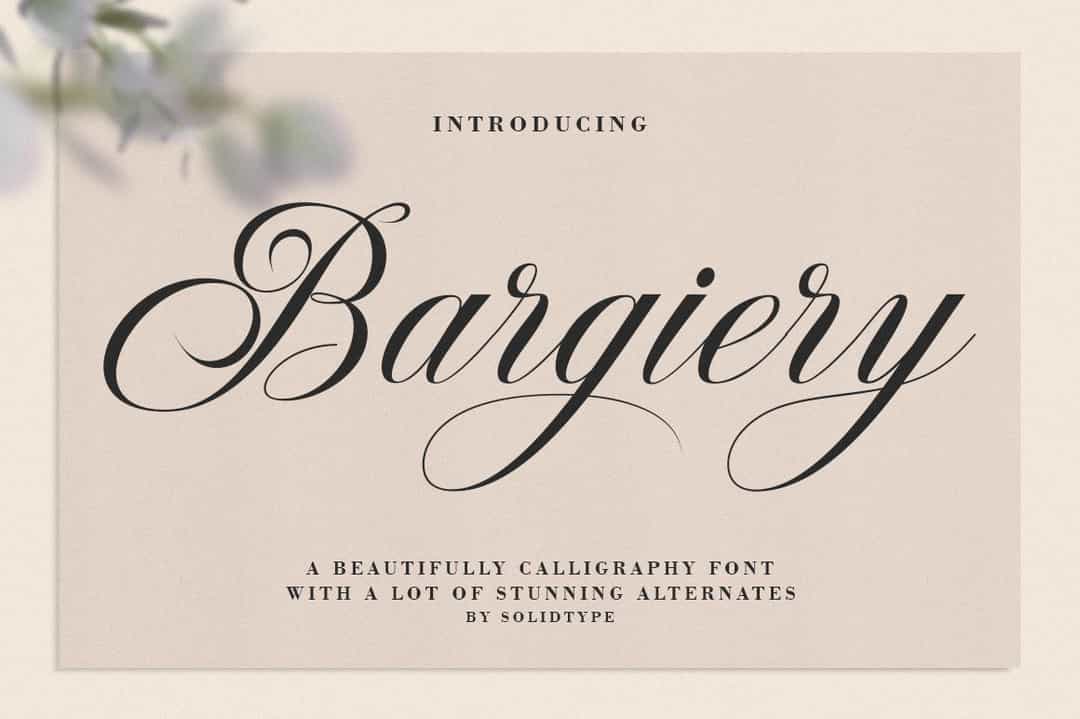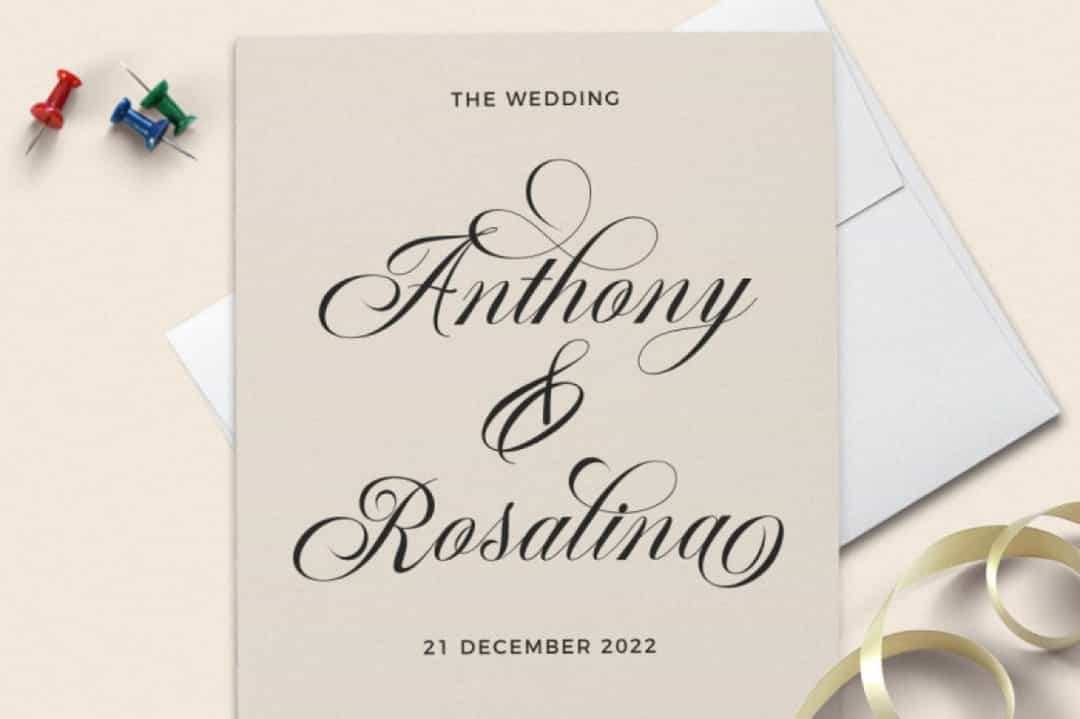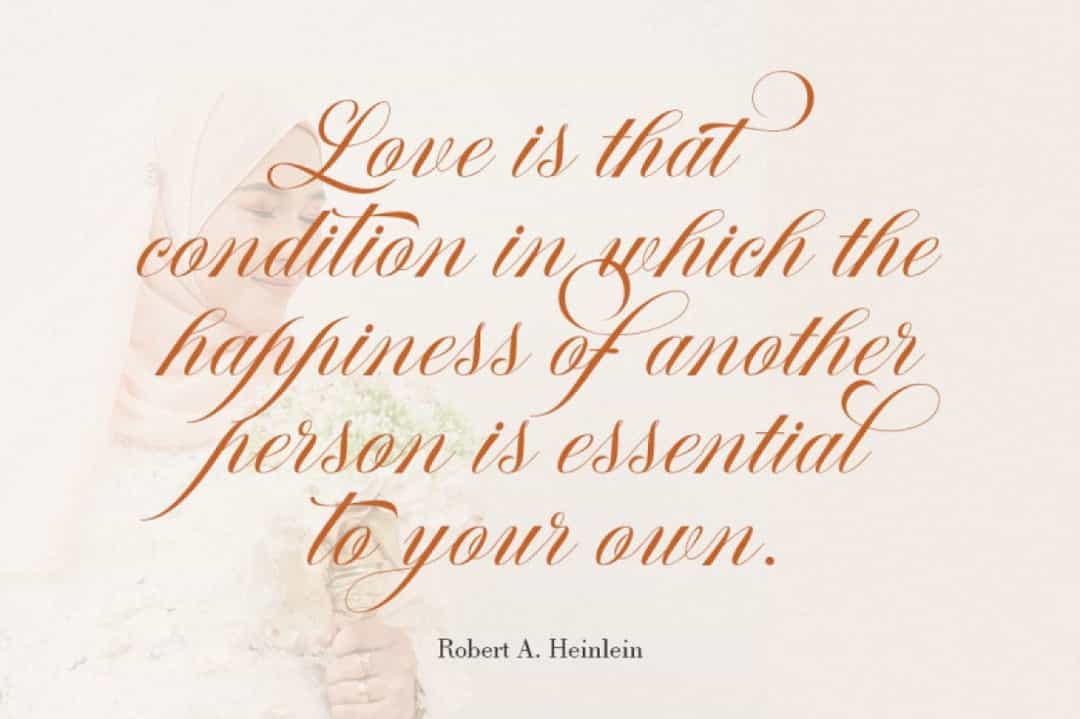
Bargiery Font is an elegant and romantic calligraphy script typeface featuring characters that move fluidly across its line. Encoded with PUA, it easily accesses all characters and symbols! Perfect for personal designs such as wedding invitations, thank-you cards invitations to weddings greeting cards logos etc.